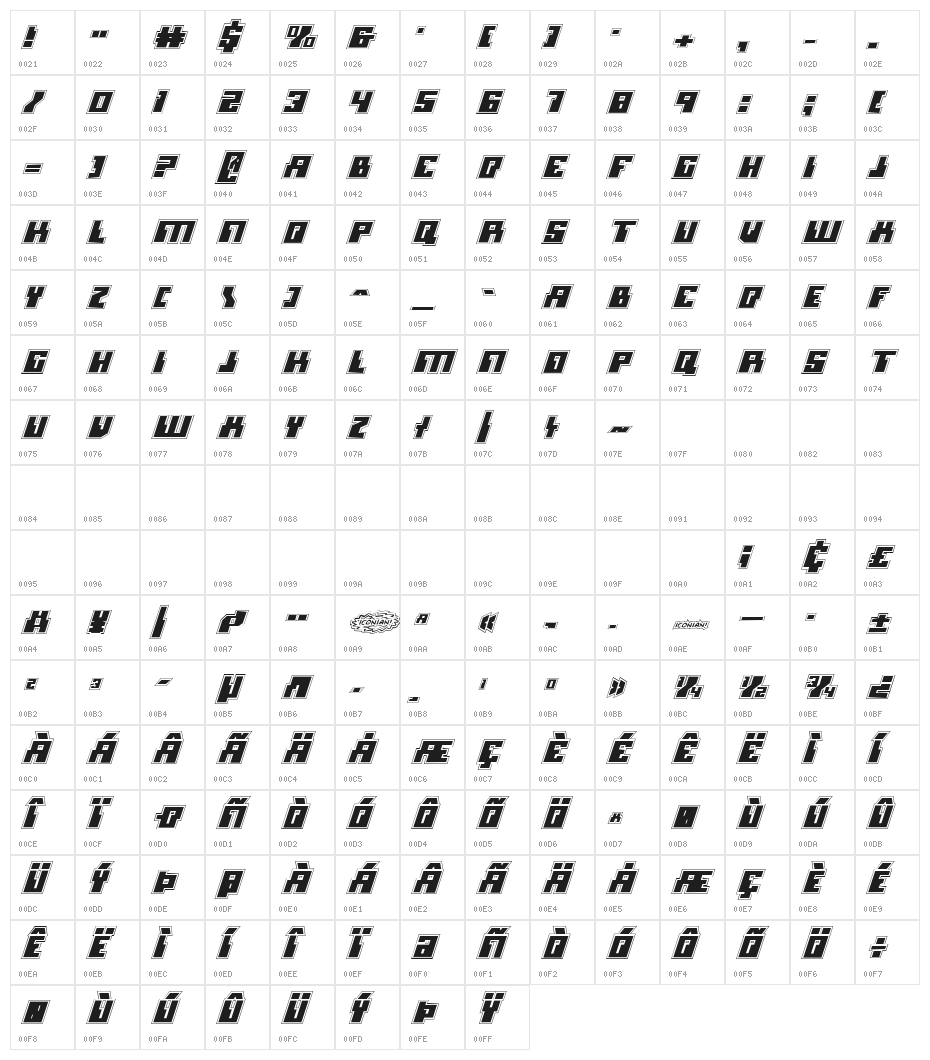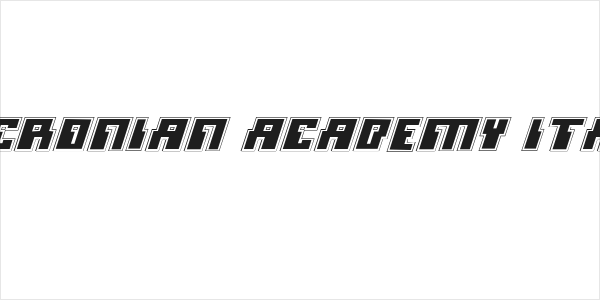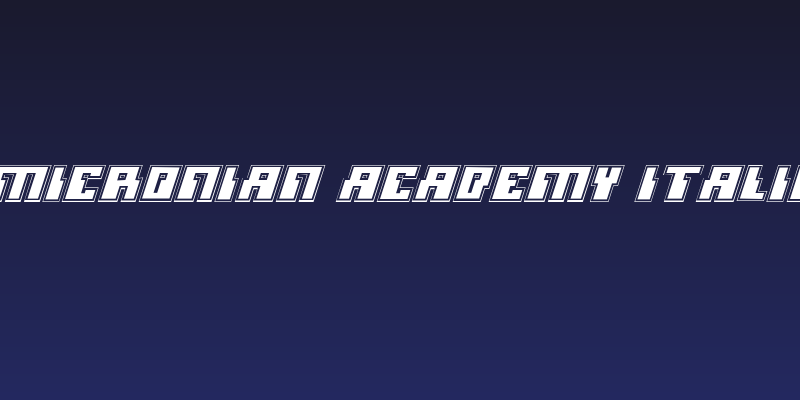
Micronian Academy Italic Font
Micronian Academy Italic Description
This font features a bold, geometric style with a strong presence. The characters are italicized, giving them a dynamic and forward-leaning appearance. Each letter is outlined, enhancing its boldness and making it stand out. The design is angular, with sharp edges and a futuristic feel. The numbers and special characters follow the same stylistic cues, maintaining consistency across the set. The font's unique style makes it suitable for projects that require a modern and impactful look.
| Proposed Projects | Ideal for sci-fi themed designs, video game titles, tech branding, and modern posters. |